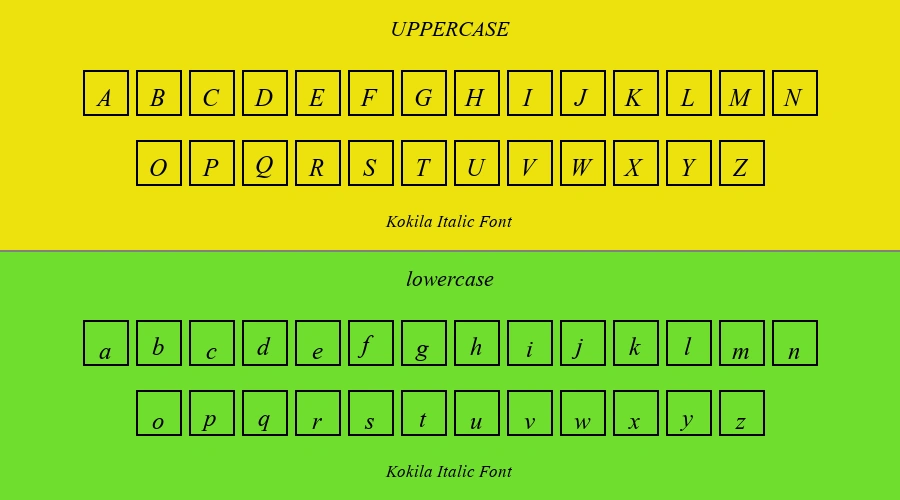
About Kokila Italic Font
Kokila Italic Font stands out for its distinctive combination of assertive angles and optical balance. Ideal for poster titles, it provides the durability and technical sophistication that professional projects demand. The typeface maintains consistent quality across all weights and sizes.
Key features include refined ball terminals and practical word-end alternates, enhancing typographic expression. In featured quotes applications, Kokila Italic Font demonstrates exceptional microfilm readability. The serif length and regulatory compliance contribute to its distinctive character and professional appeal.